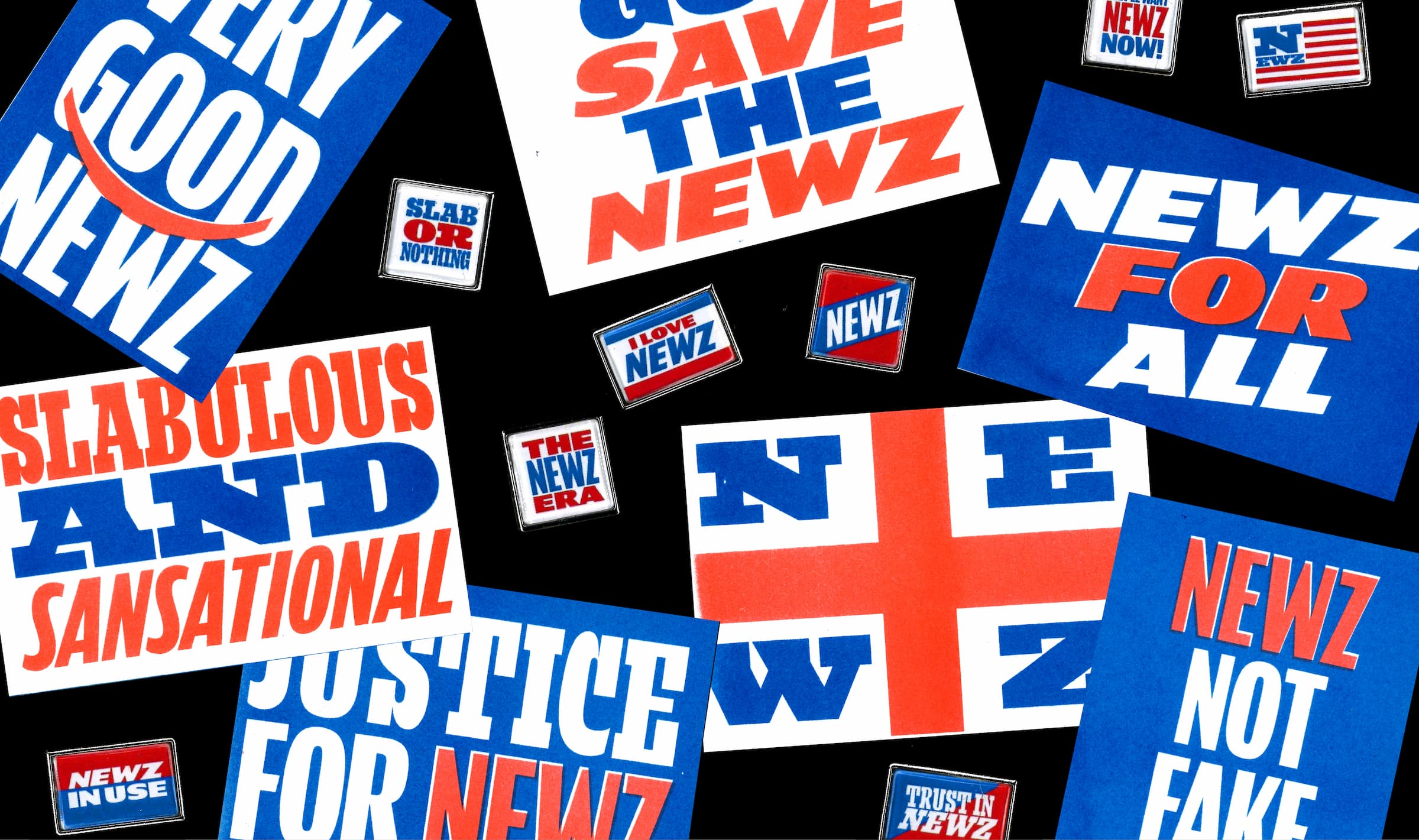
NEWZ: louder than the noise
Read our latest interview and meet the French graphic and type designer Manau Quellec, the 11th recipient of the Gerard Unger Scholarship, and his intense, impactful, and loud NEWZ. You’ll also find out how he created a football tournament that evolved into a full student symposium, the Art and Design Schools Football League (READ).